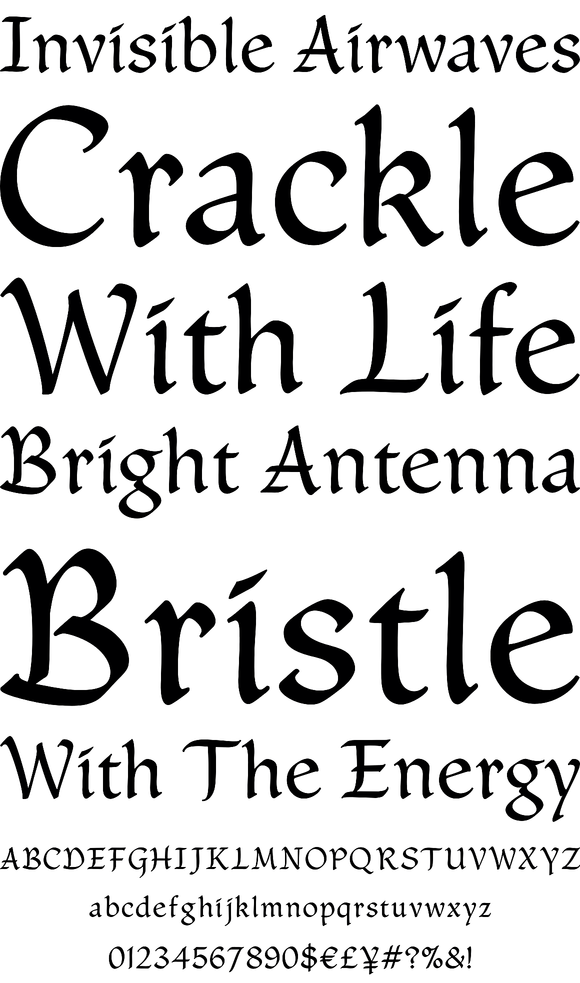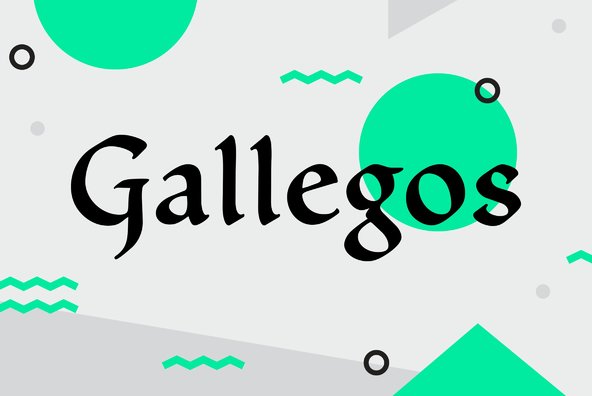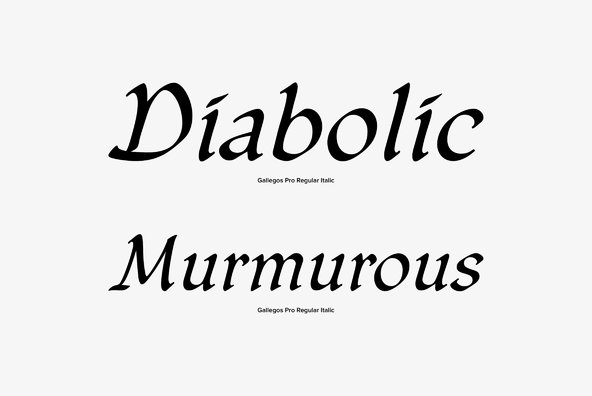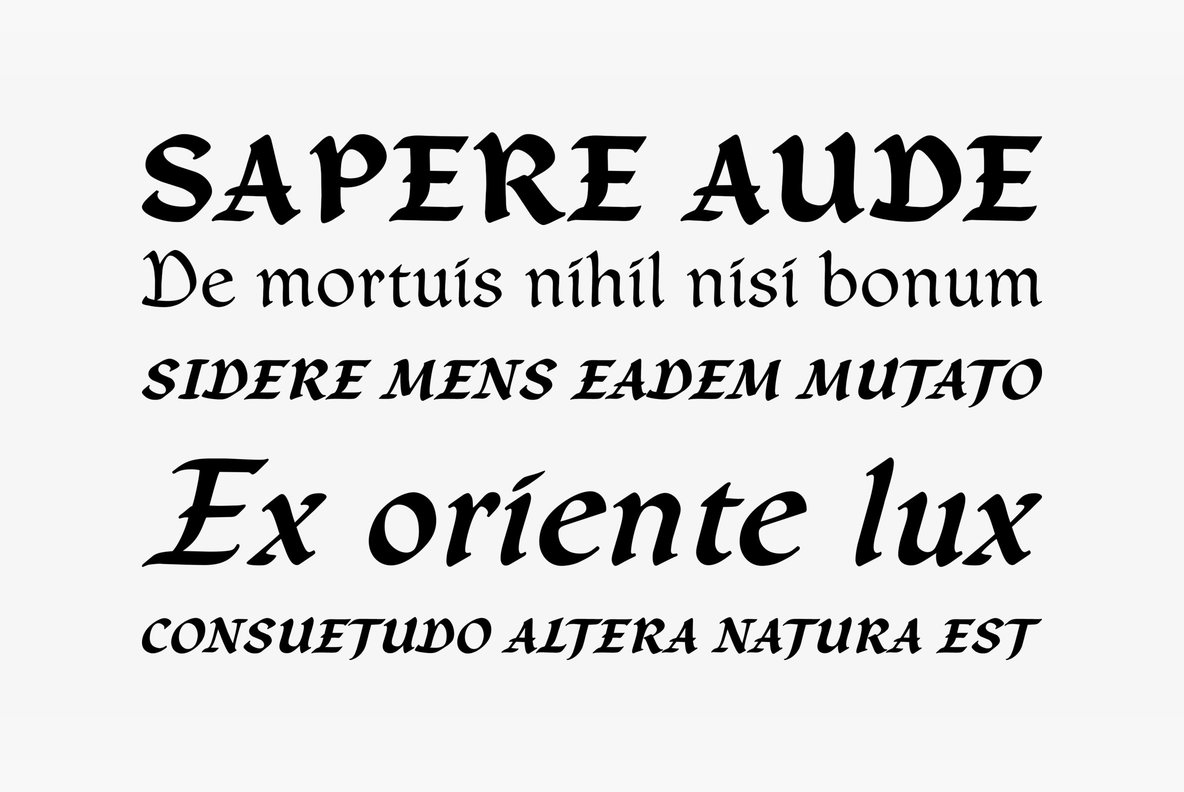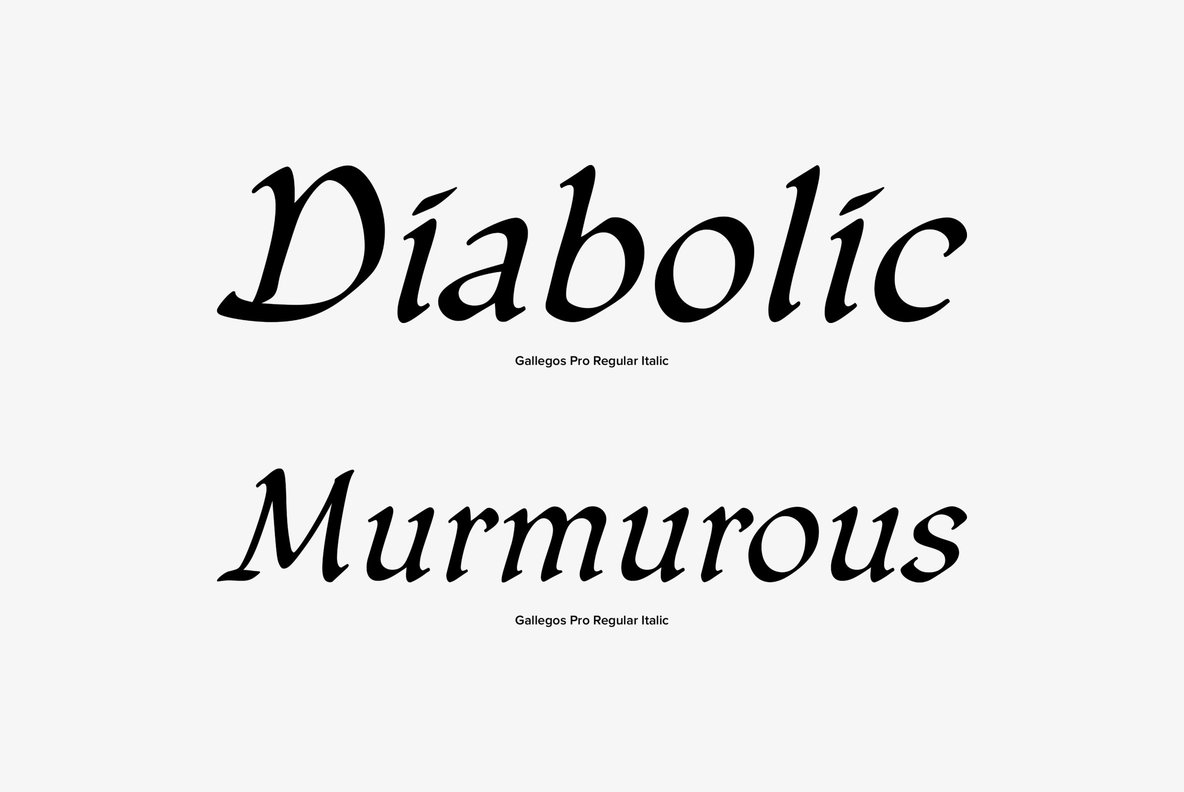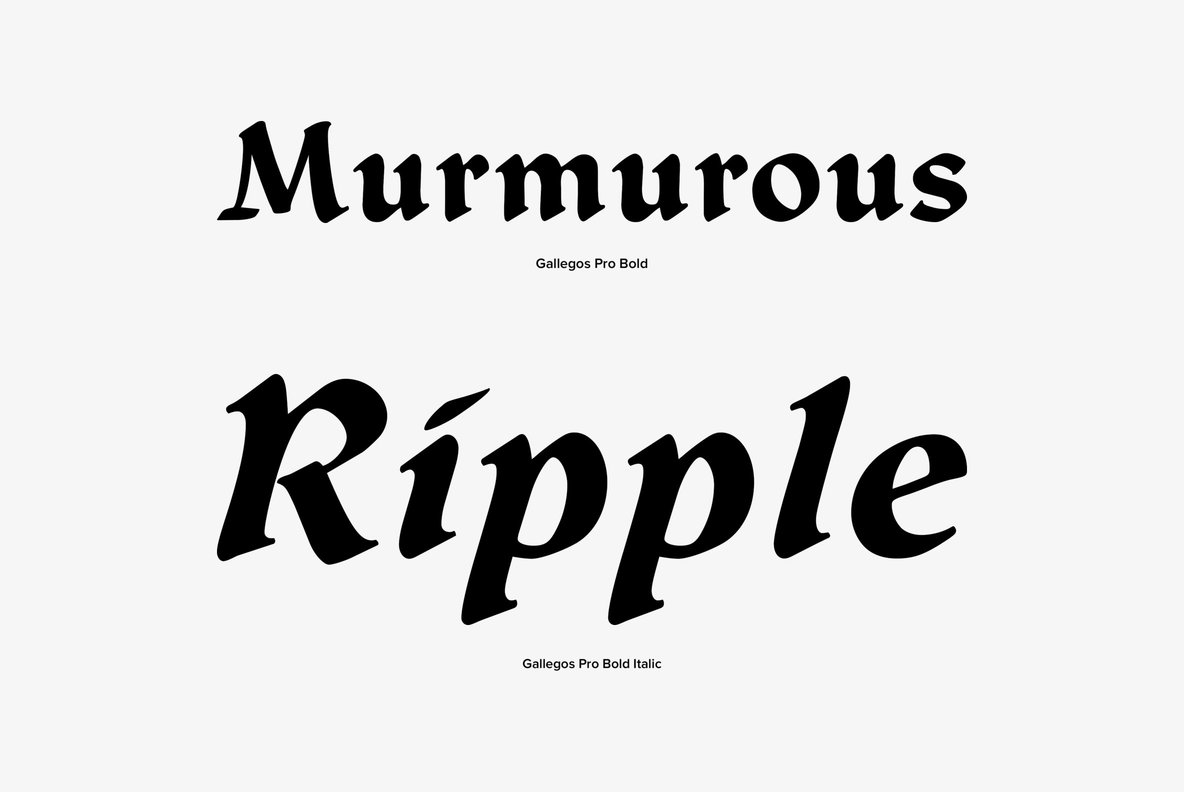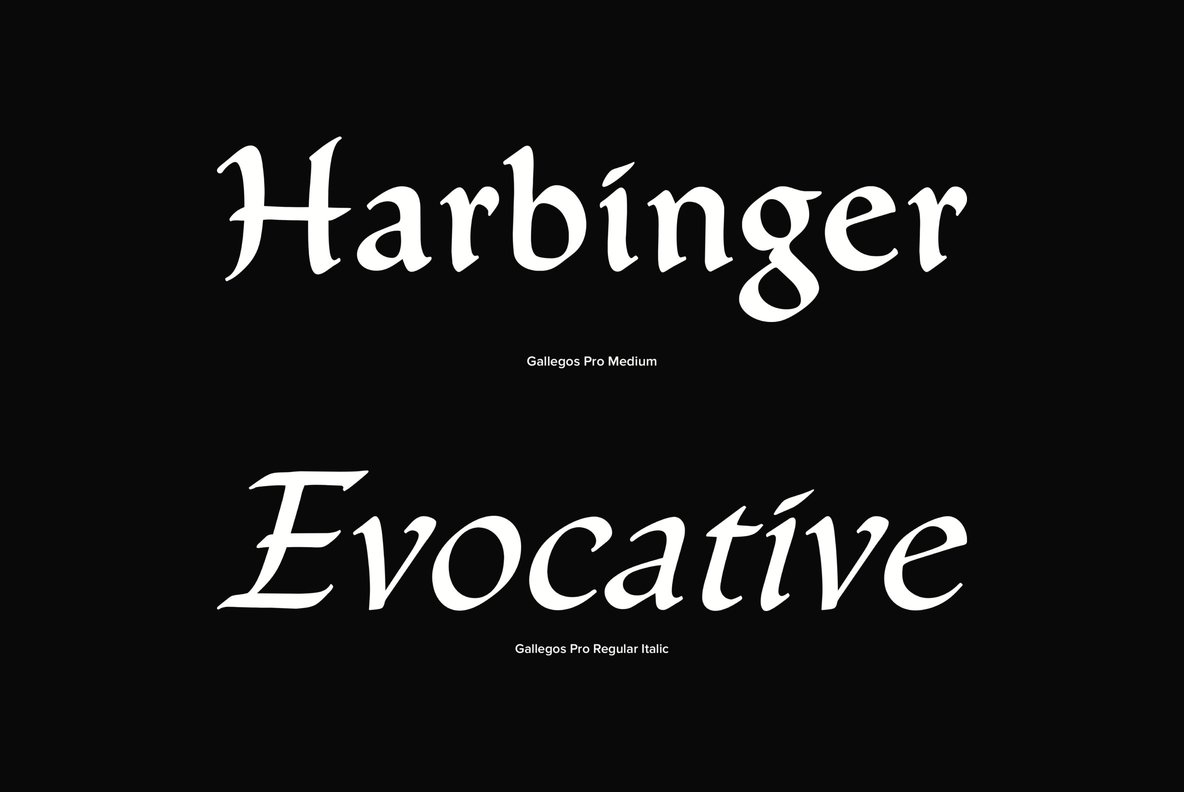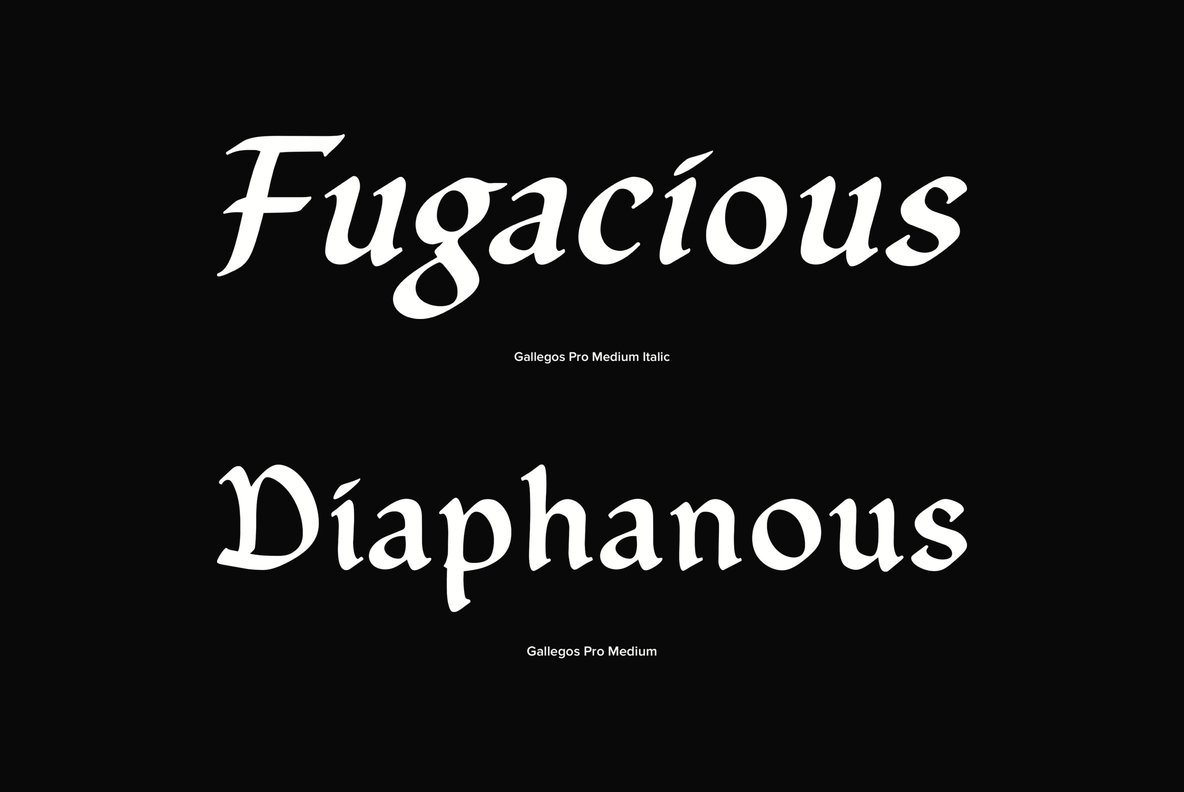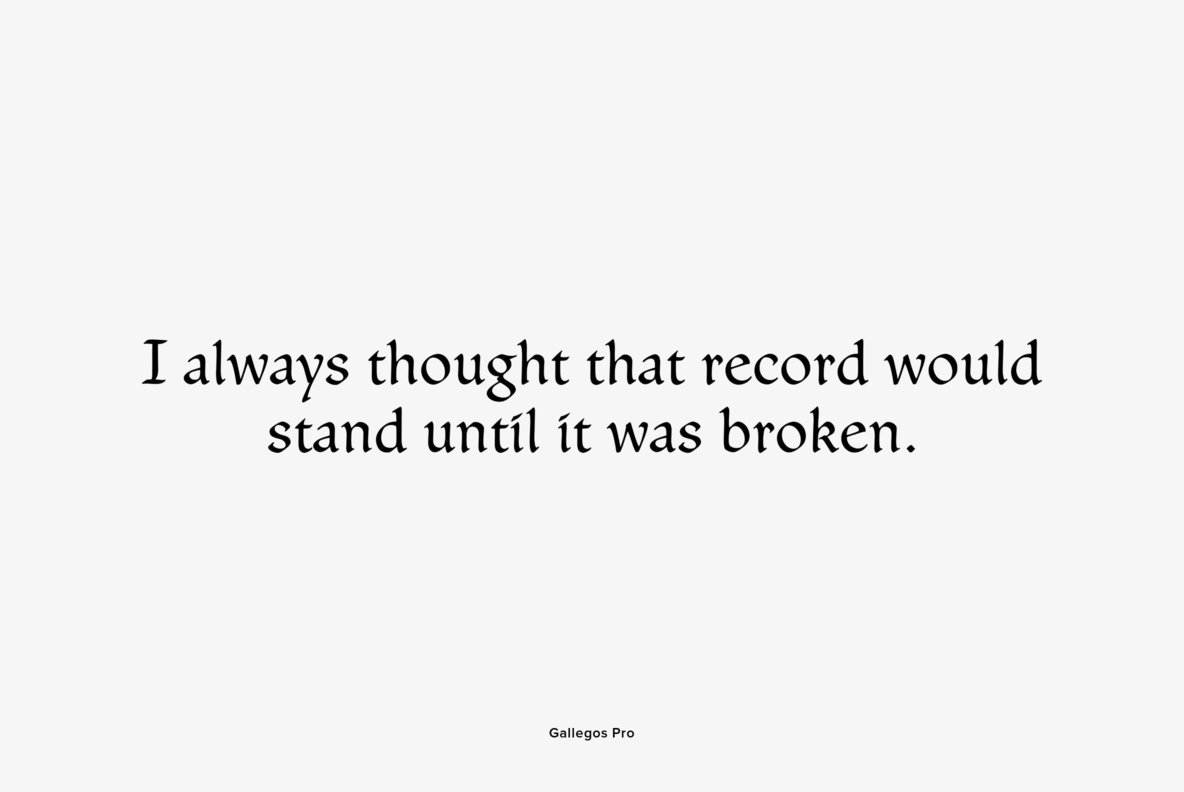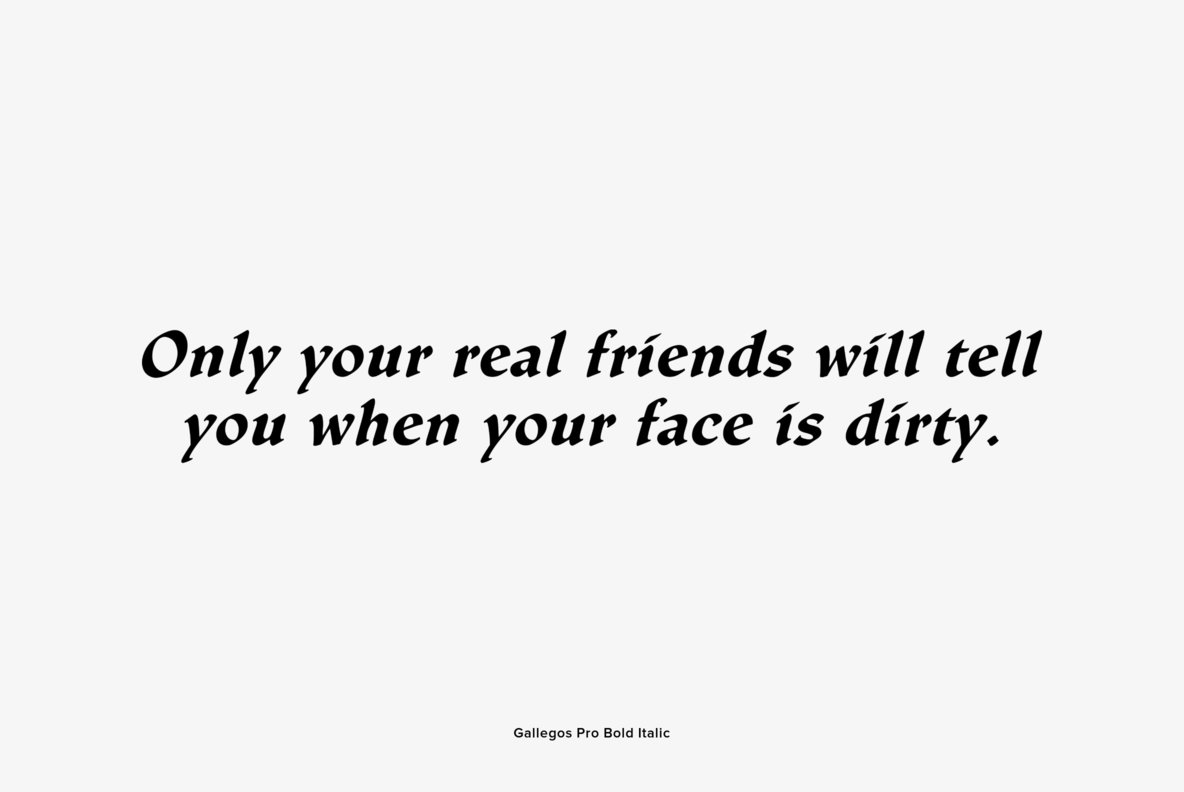
Gallegos Pro
Gallego Pro is a classical, pen-drawn upright script useful for many applications, e.g. book titles, ads, magazines or any kind of display work.